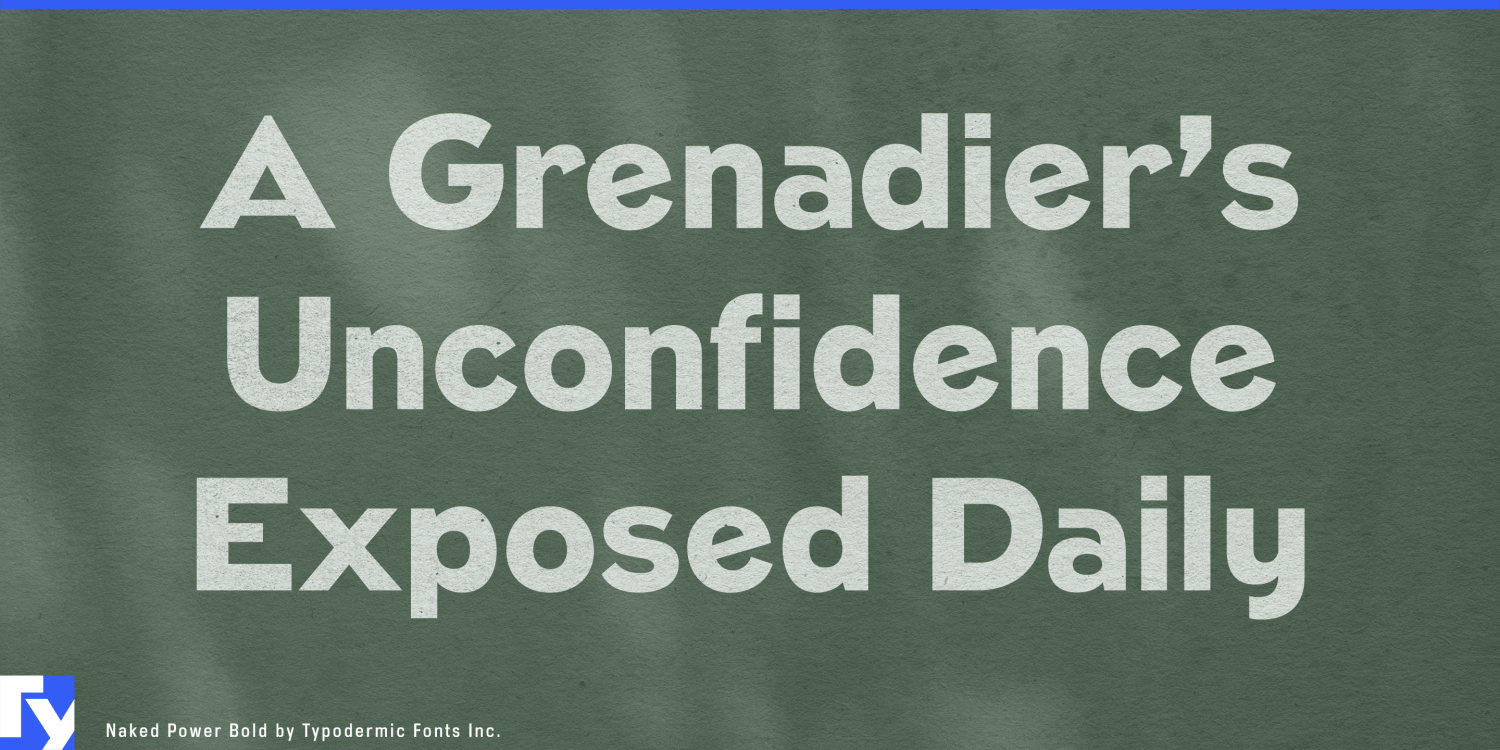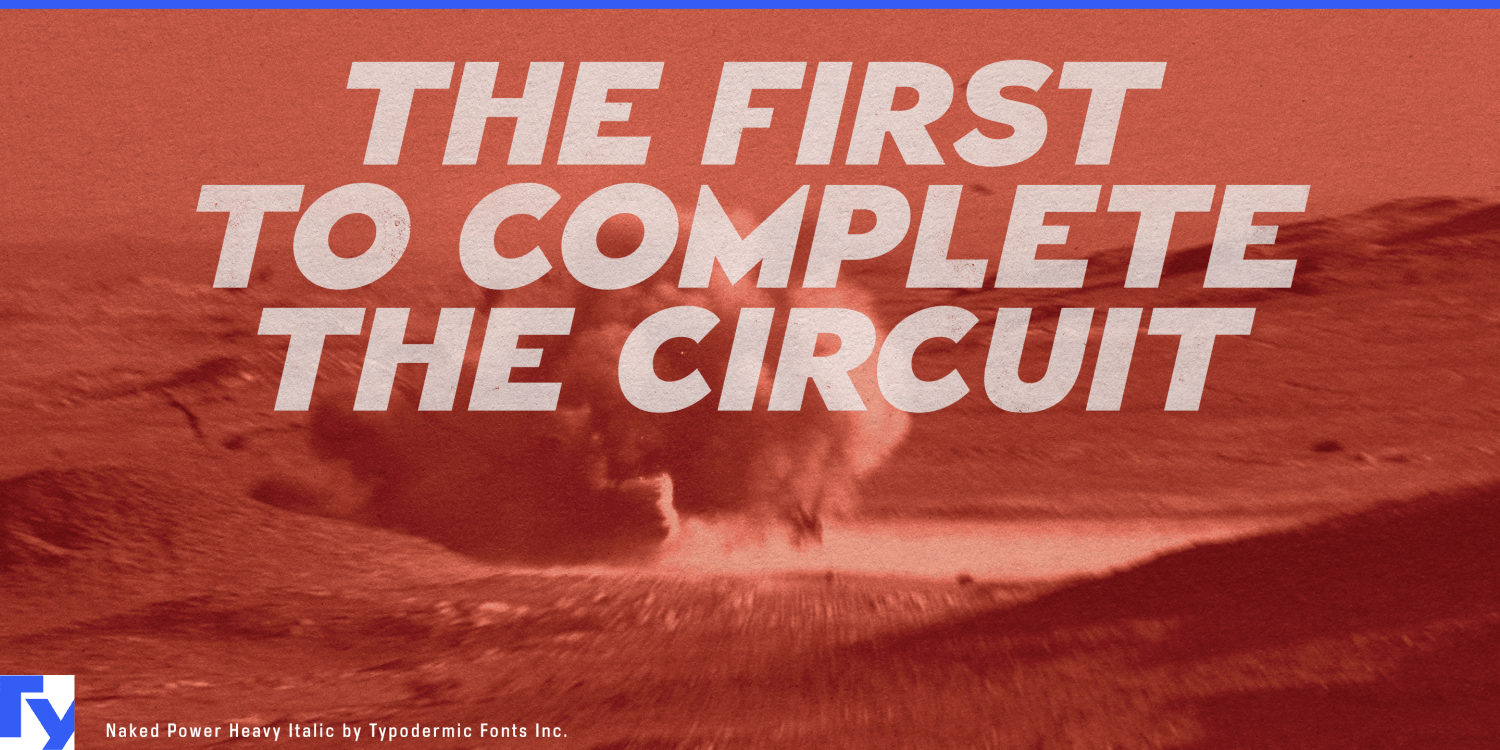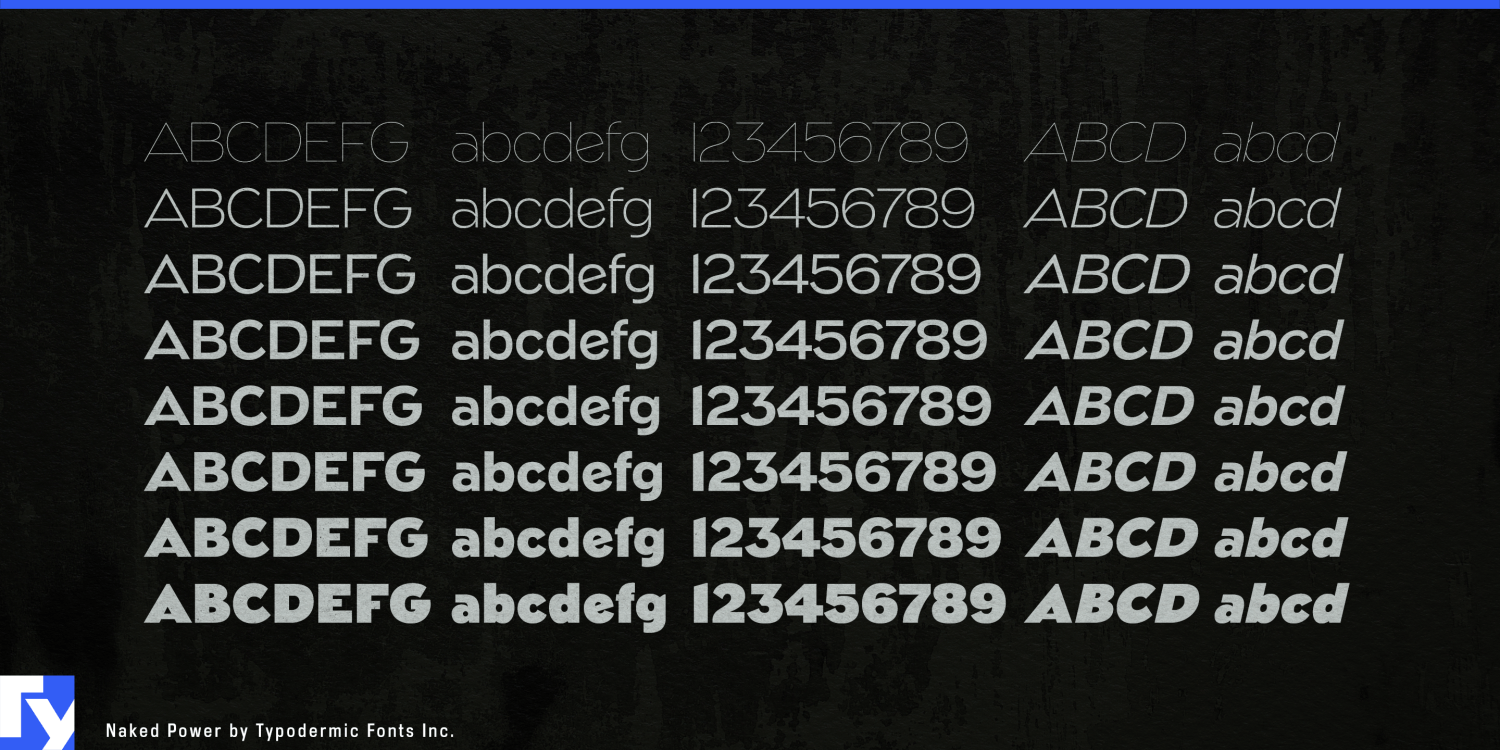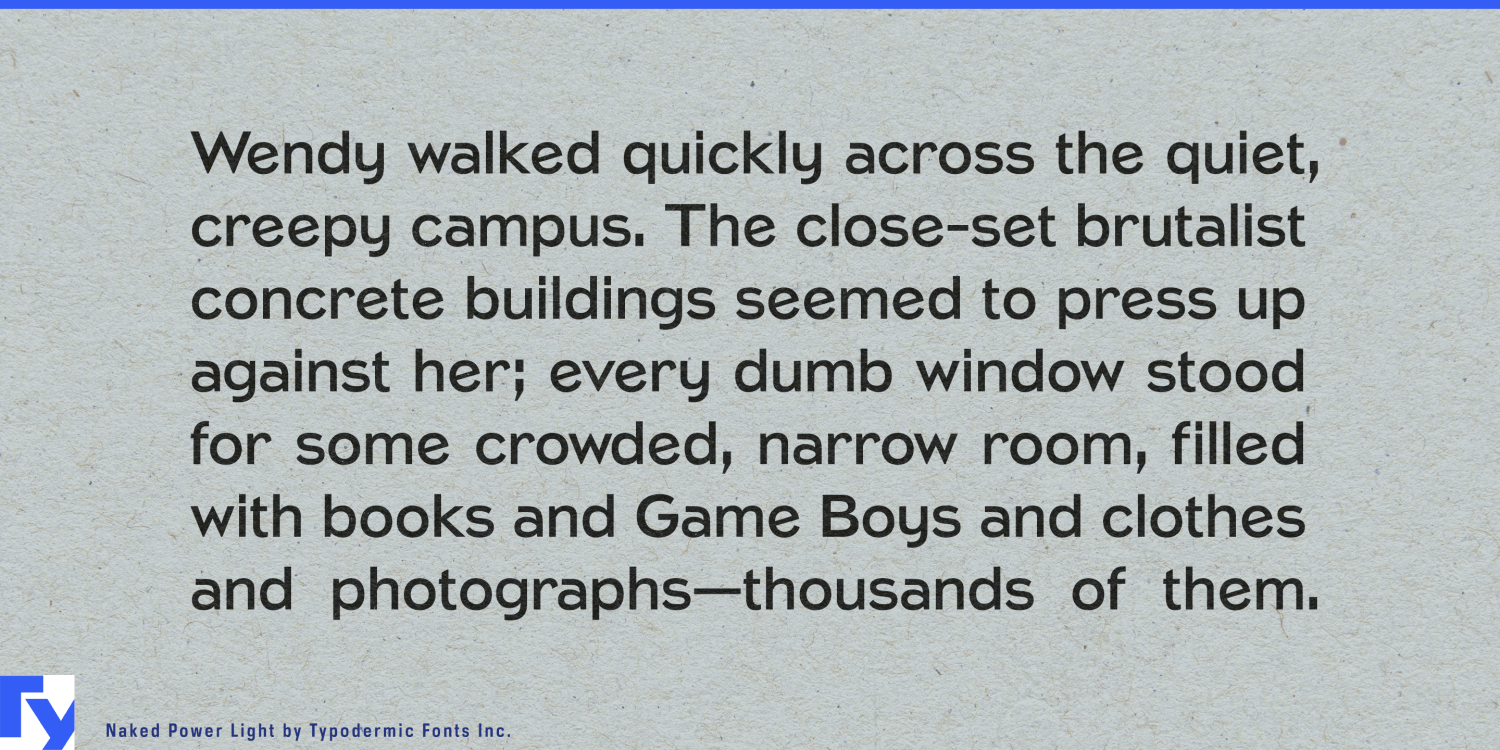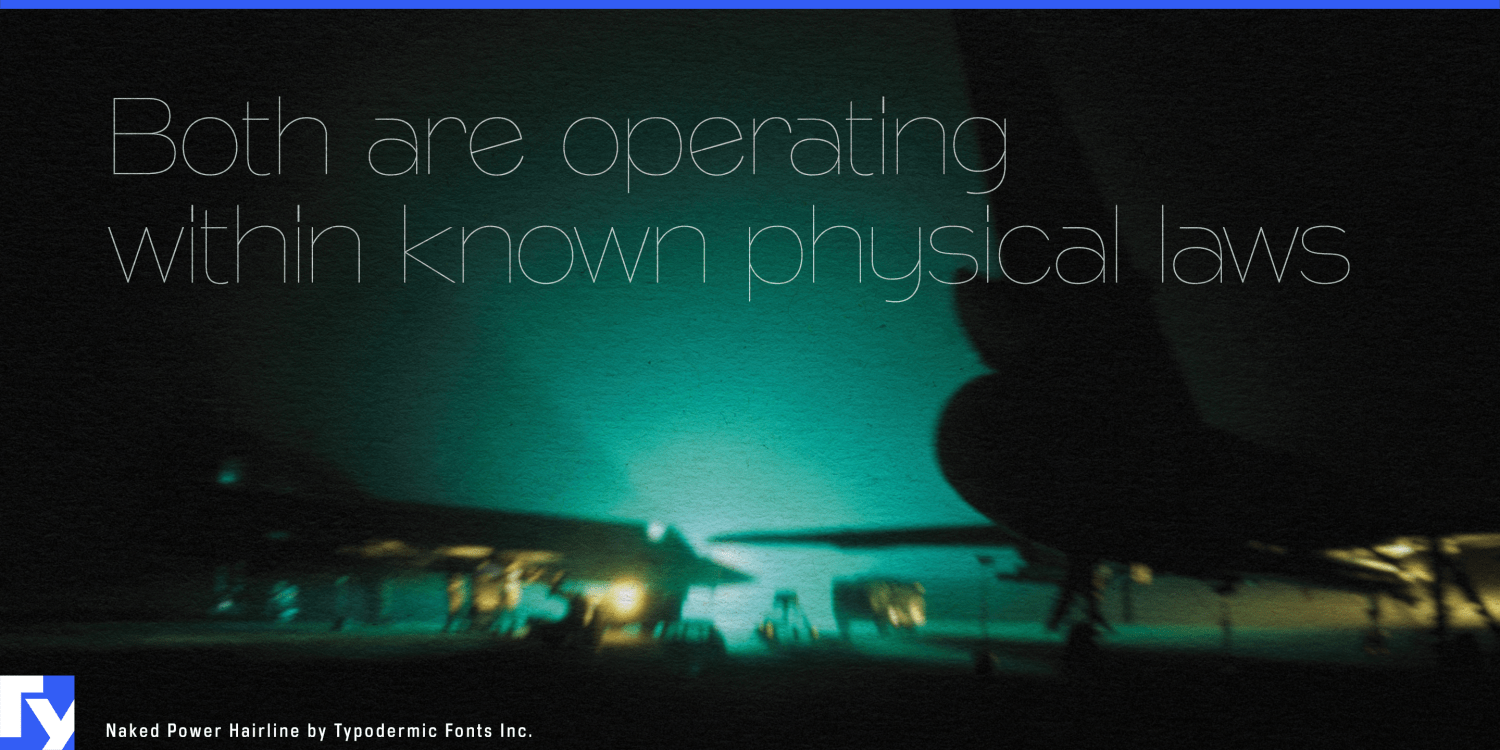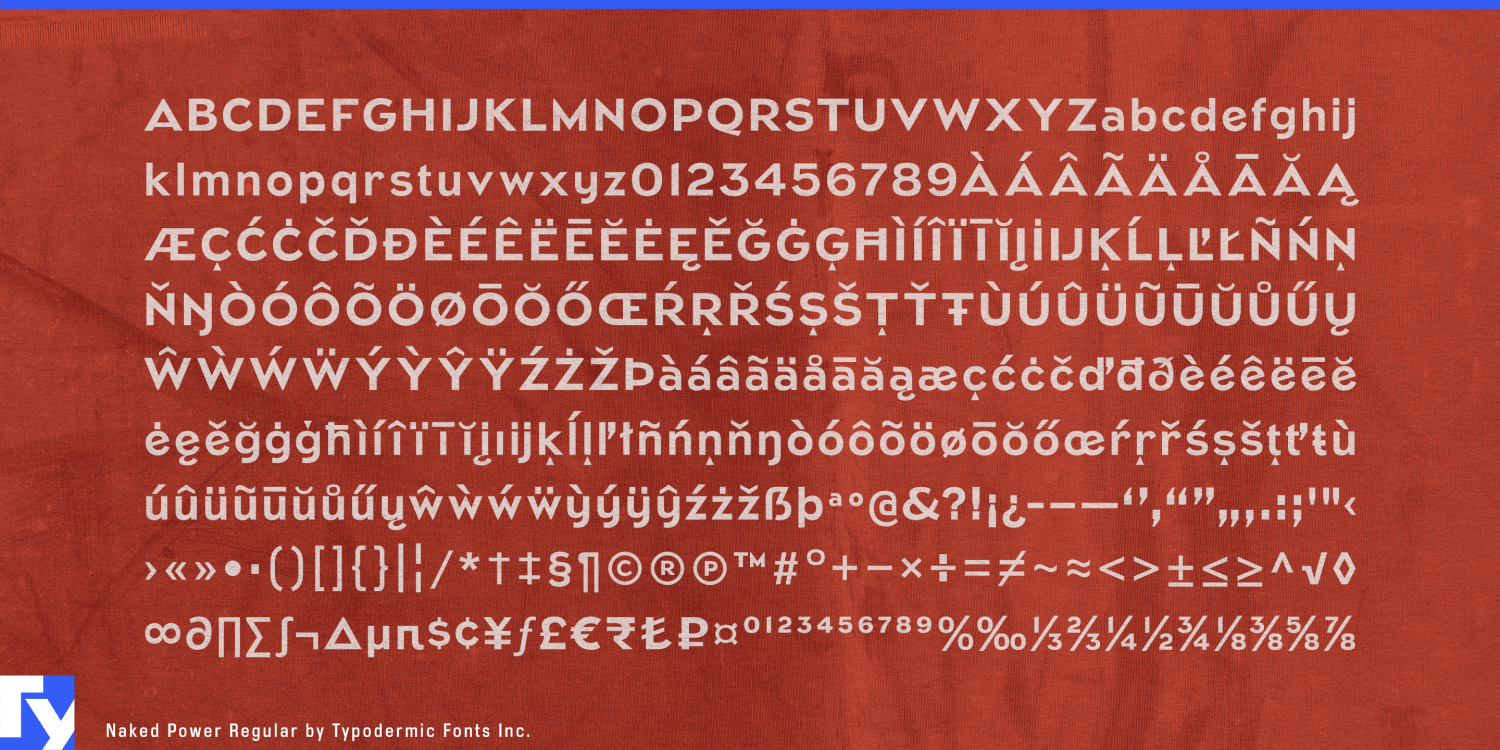
About Naked Power
Naked Power strips design down to its essence, revealing the raw beauty of geometry in every curve and line. This sans-serif typeface doesn’t just nod to the iconic fonts of the early 20th century—it struts confidently into the present, turning…